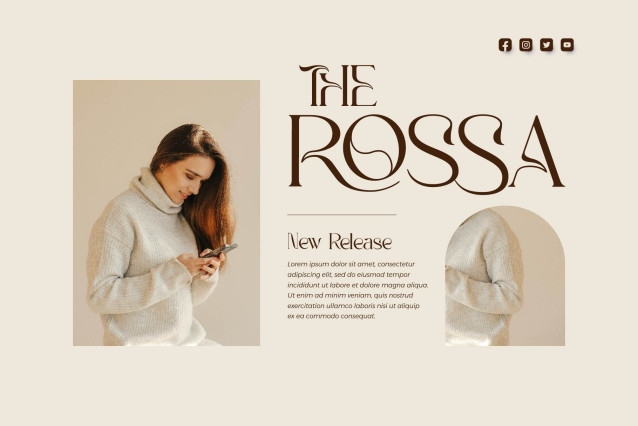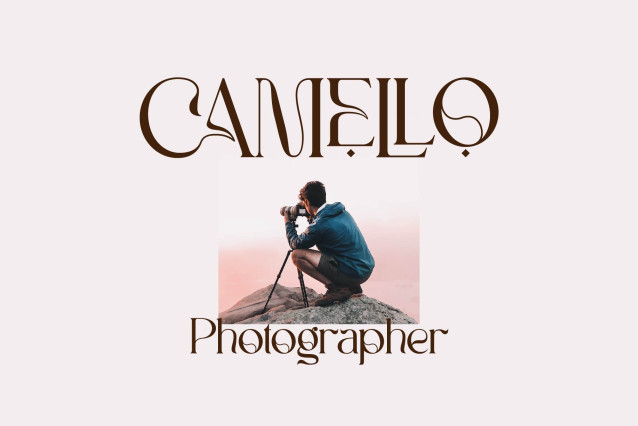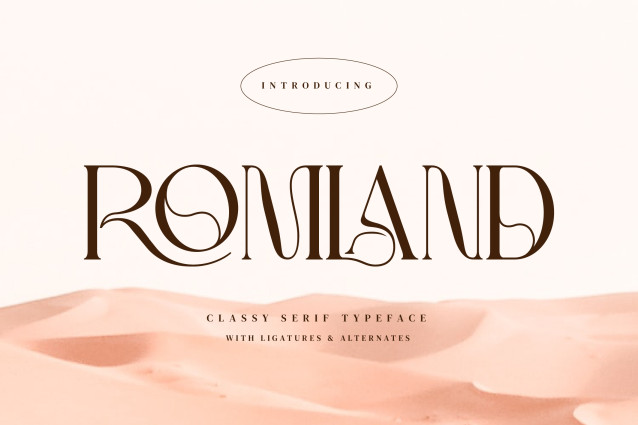
Romland – Classy Serif Font
OMLAND Stylish Ligature Typeface, inspired by the famous minimalist logo perfect for the purposes of designing templates, brochures, videos, advertising branding, logos and more.
– Ligatures